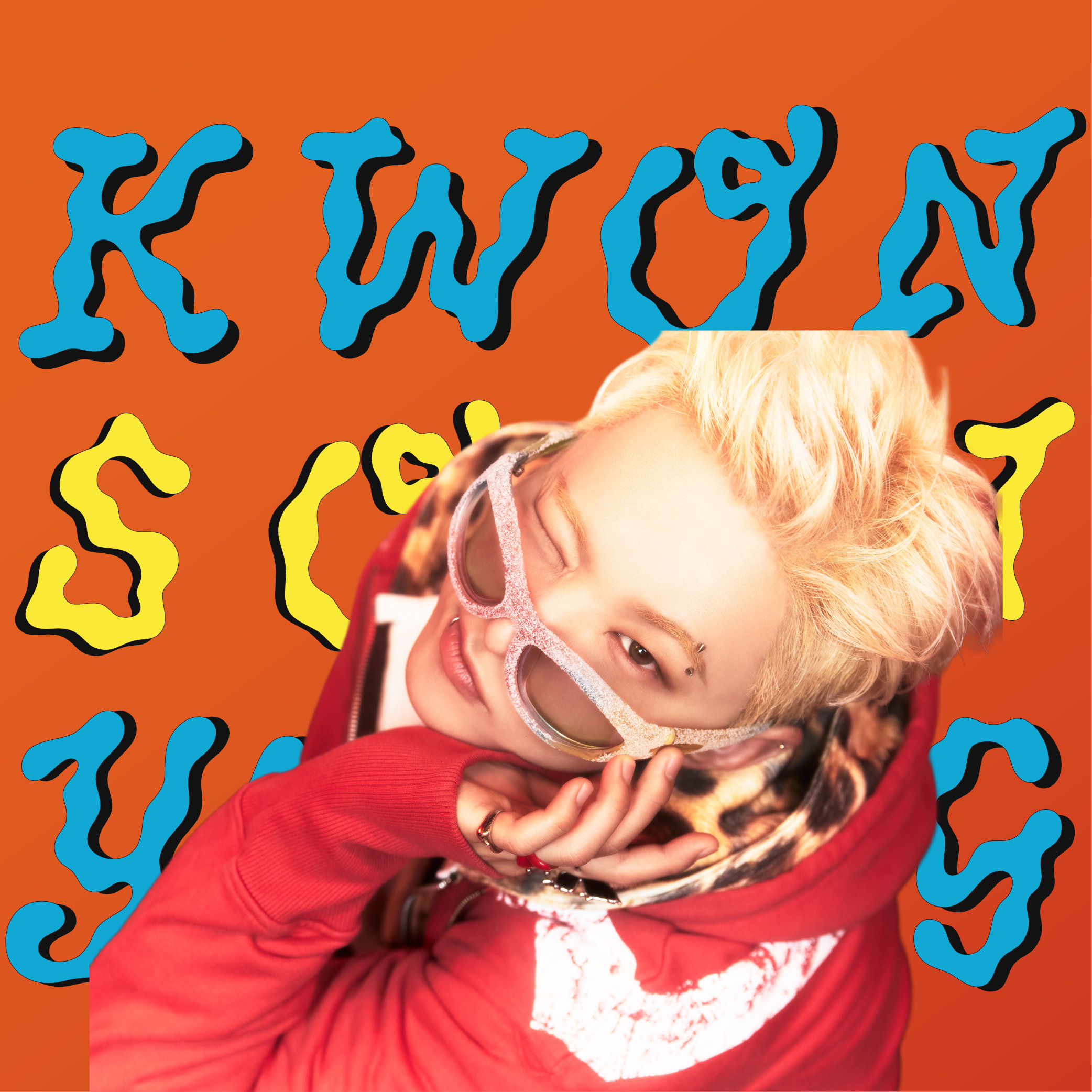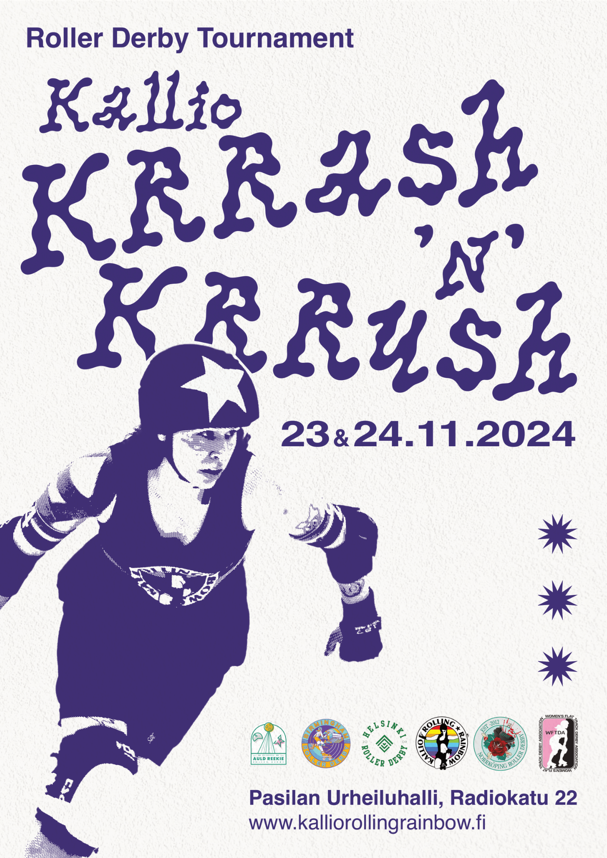
PicNic
Into the Wyrd and Wild
PicNic is an organic typeface inhabiting a cloud of contextual ligatures and inclusive ligatures, substituting for the midpoint automatically. They are designed mainly for French.
The shapes are inspired by the trajectory of a drop of water on an oilcloth, the shadows of the tree leaves on the fabric lying in the grass, the precise path that the ant takes to the watermelon. They attempt to translate the sensory experience of a picnic among friends.
This typeface will suit for all wild, poetic and bucolic explorers for their most adventurous excursions.